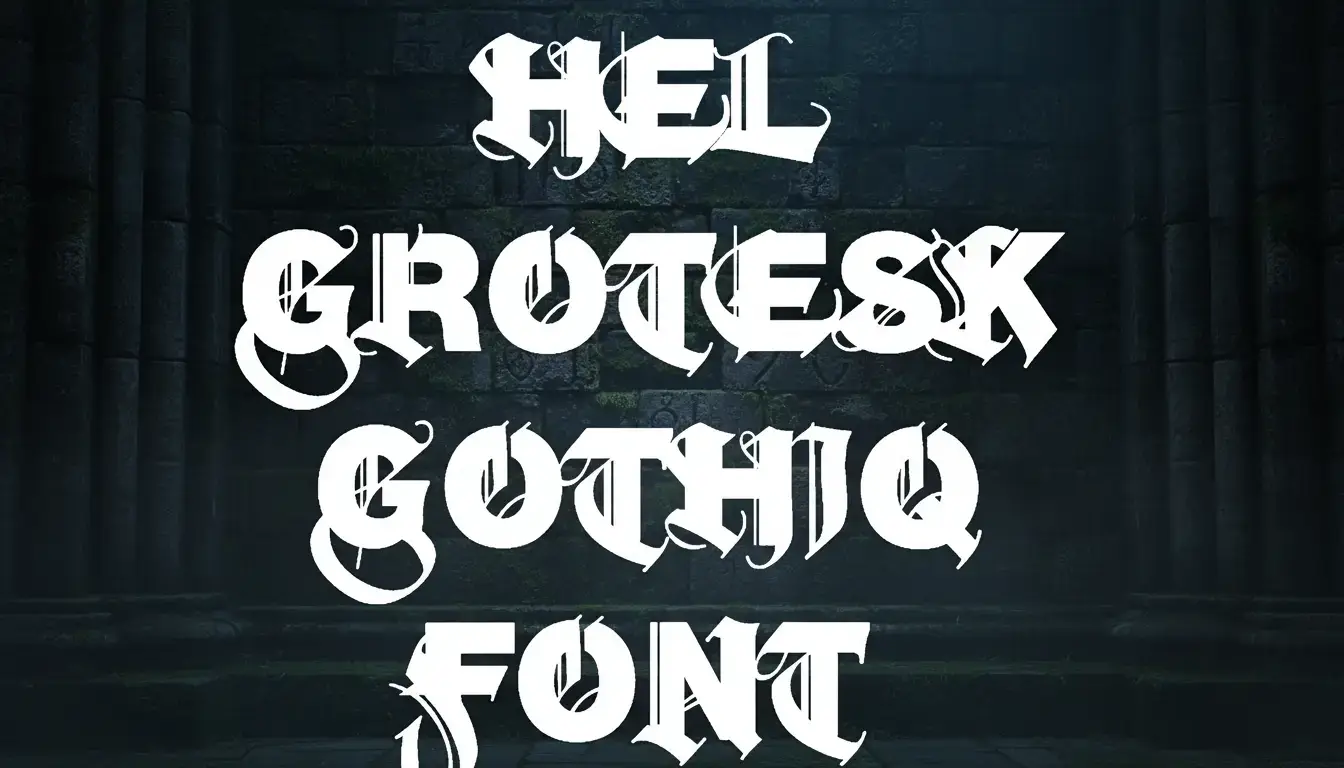
Hel Grotesk Gothiq Font
Hel Grotesk Gothiq
Hel Grotesk Gothiq is a gothic font created by Kevin Yuen Kit Lo. Its pointed, heavy strokes give it a dark, dramatic blackletter look. You can download it for free and test it with your own words in the preview above.
- Designer: Kevin Yuen Kit Lo
- Font styles: 1 (Black)
- Glyphs: 177
What You Can Type With Hel Grotesk Gothiq
You get every letter from A to Z in both cases and all the numbers from 0 to 9, which means Hel Grotesk Gothiq can handle full sentences, dates and prices. Everyday marks like &, ! and ? are there too. Thanks to its accented letters, it also works for Spanish, French, Portuguese and Italian, not just English.
Where Hel Grotesk Gothiq Works Best
Designers usually reach for fonts like Hel Grotesk Gothiq when they're making tattoos, metal band logos and dark fantasy titles. Blackletter is very hard to read in all caps, so type in normal upper and lowercase.
Does Hel Grotesk Gothiq support accented letters?
Yes. Hel Grotesk Gothiq includes the accented letters needed for Spanish, French, Portuguese and Italian, so it works for more than just English.